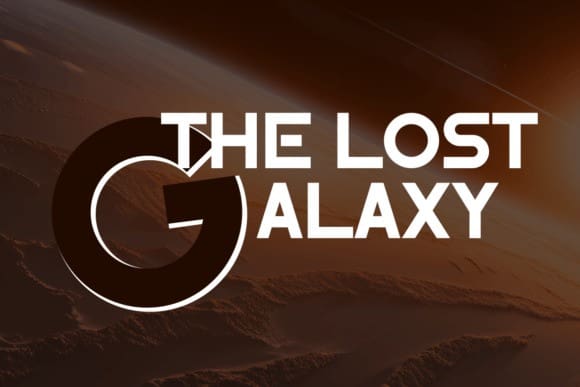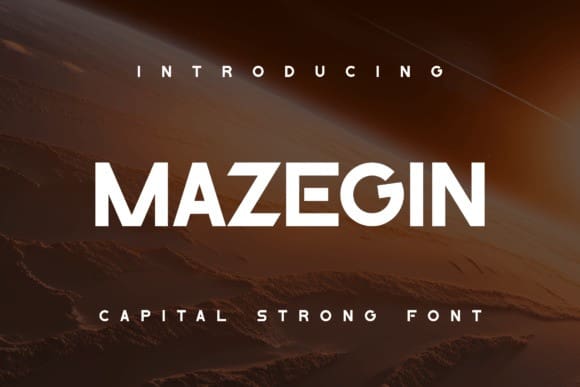
Mazegin Font
Mazegin Font is an elegant and modern sans serif font. This minimalist and clean vibe can easily apply to your favorite designs such as book covers, magazines, social media posts, invitations, and so much more.